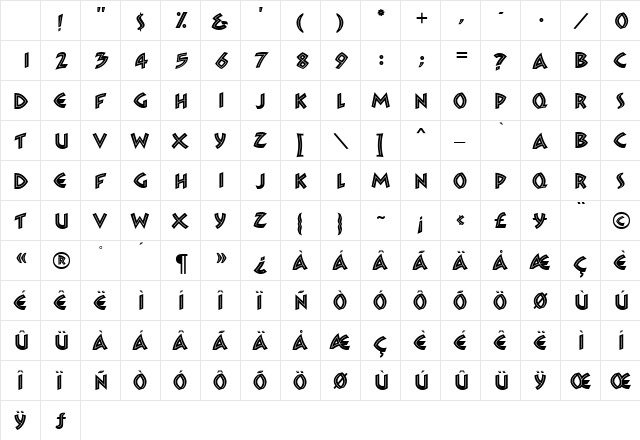
Complete Zambesi MN Regular glyph index. Displaying only characters natively supported by Zambesi MN Regular font.
Zambesi MN is a composed and adaptable typeface that performs quietly and consistently across a wide range of design contexts.